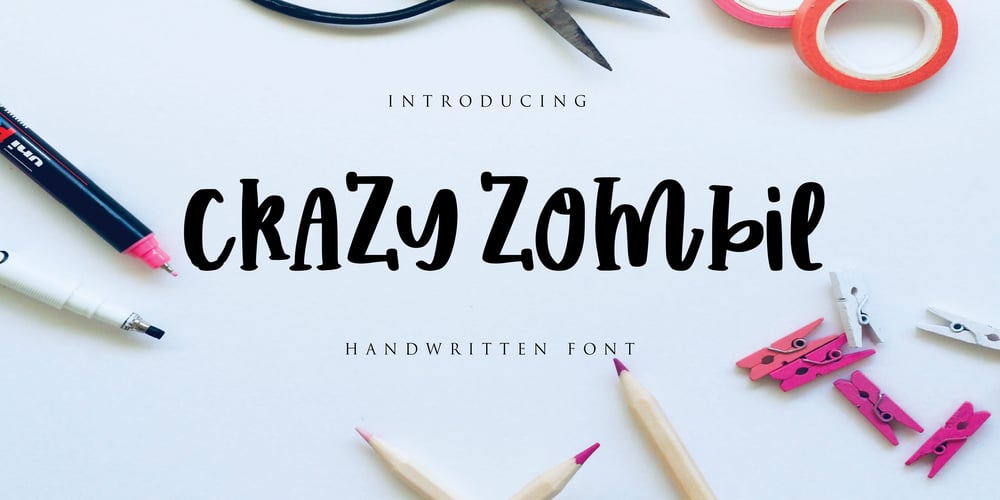
Crazy Zombie
Crazy Zombie font
Crazy Zombie Font Family was designed by Mariyana and published by Goodigital13. Crazy Zombie contains 1 styles and family package options. It suitable for branding, crafting quote, t-shirt, poster, packaging, book cover, display design, cards, invitation and any cute handwriting needs and more.display font, this font is perfect for branding, logo, invitation, stationery, social media post, product packaging, merchandise, blog design, game titles, retro style design, Book/Cover Title and more.